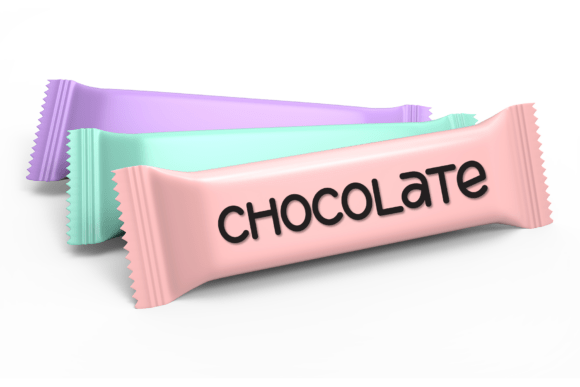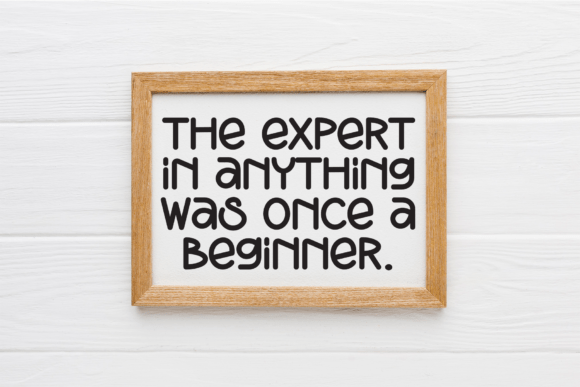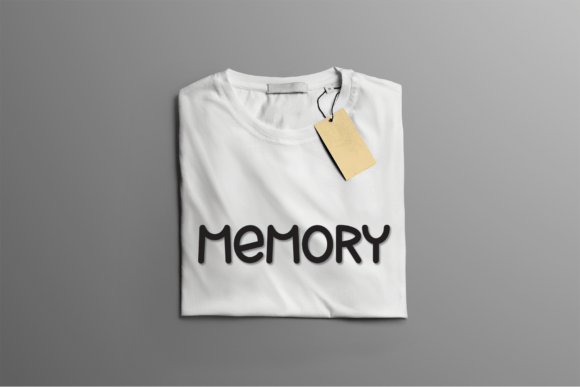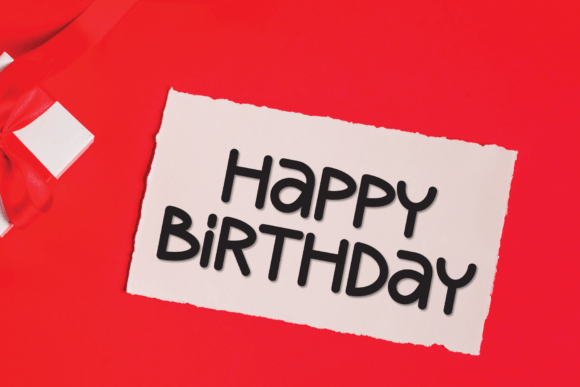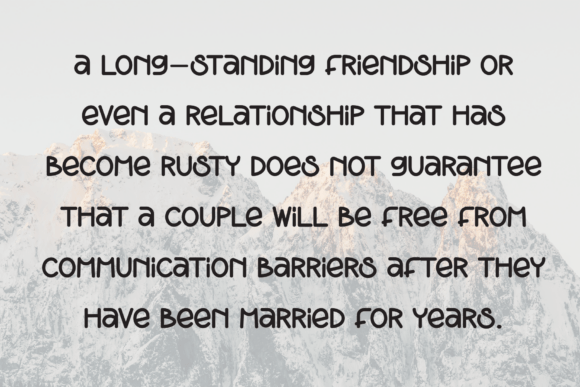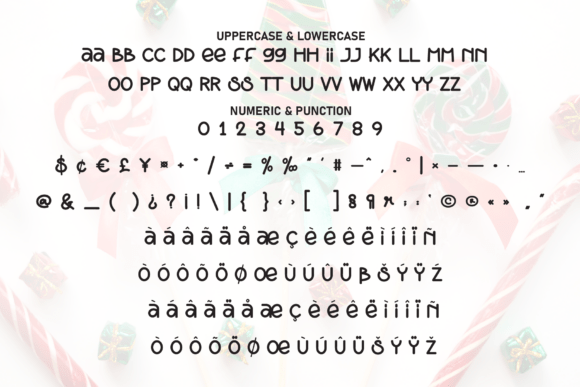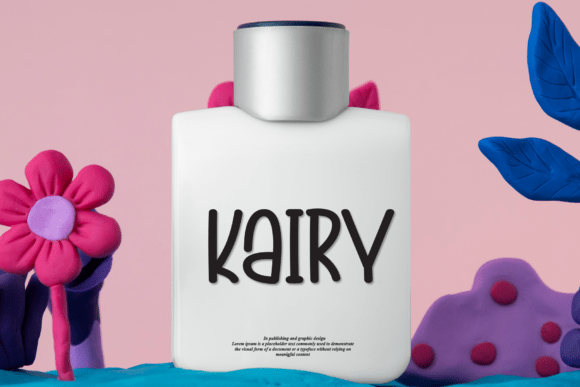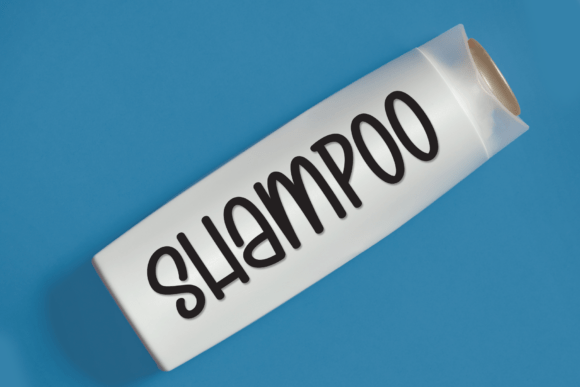
Deck the Halls with Whimsy: The Allure of Candy Christmas Font
As you sit at your desk, surrounded by twinkling lights and festive decorations, a spark of inspiration strikes. You want to create something truly special – a wedding invitation that exudes joy, a card that spreads love, or a design that radiates warmth. It’s moments like these that make you appreciate the little details that can elevate your creations from ordinary to extraordinary.
Enter the Sweet & Friendly font, a delightful handwritten display font that embodies the essence of Candy Christmas Font. With its playful, whimsical nature, this font is the perfect companion for designers seeking to infuse their designs with a sprinkle of magic. Its versatility makes it an invaluable asset for any creative project, from heartfelt messages to delightful greetings.
Candy Christmas Font Key Features
• Unique Characteristics: The Candy Christmas Font features a unique, whimsical design with bold lines, playful shapes, and festive colors, making it perfect for adding a touch of holiday cheer to your designs.
Candy Christmas Font Review
Candy Christmas Font is a delightful, festive font that screams “Holiday Cheer”! ✨ Its whimsical, hand-drawn style is perfect for adding a touch of magic to your Christmas-themed designs.
• Unique and playful design that sets it apart from more traditional fonts
• Perfect for creating eye-catching headlines, titles, and captions
• Easy to read, even at smaller font sizes
• Works well in a variety of design contexts, from digital to print
• May not be suitable for more formal or elegant designs
• Some characters may be more ornate than others, which can affect readability
• Not a full-featured font, so it may not include all the characters you need
Overall, Candy Christmas Font is a great choice for anyone looking to add some festive flair to their designs. Just be mindful of its limitations and use it thoughtfully to get the most out of it.
Some tips to get the most out of the Candy Christmas Font include:
• Using it for festive holiday designs, such as Christmas cards and gift tags.
• Pairing it with bold and bright colors to create a playful and fun atmosphere.
• Experimenting with different font sizes and styles to create visual interest.